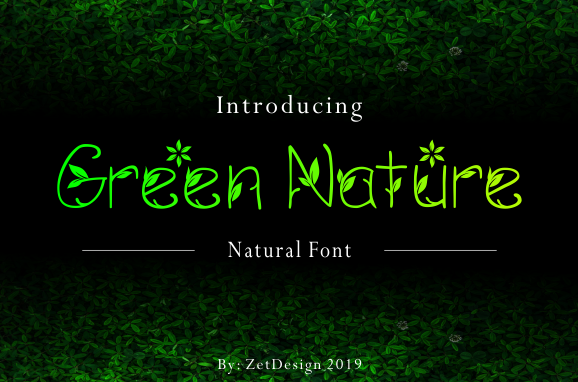
Preview and download Green Nature Font. Created by Ahmad Zulfikar Ali in Fancy Decorative styles with Free for personal use license.
Font name: | Green Nature |
Author: | Ahmad Zulfikar Ali |
Note by Ahmad Zulfikar Ali | |
THIS FONT IS VERY NICE AND HIGHLY SUITABLE FOR NATURAL MEANING |